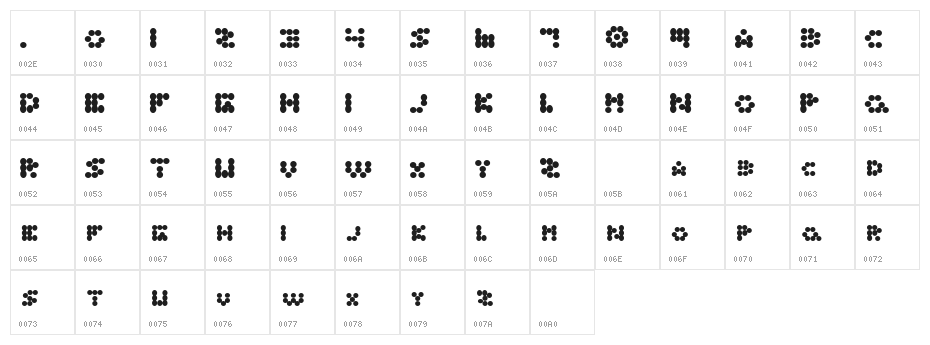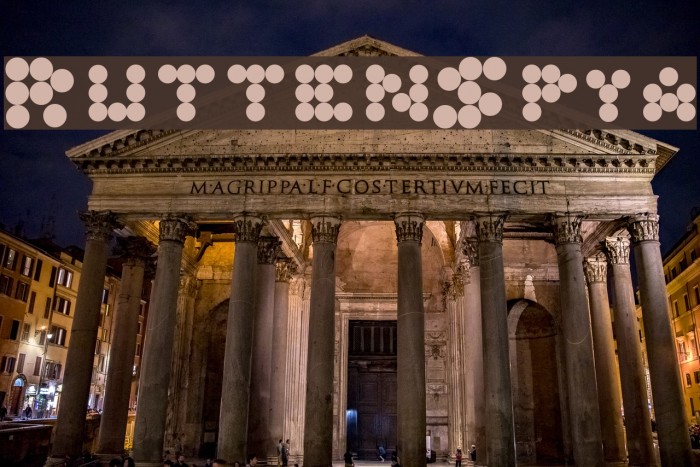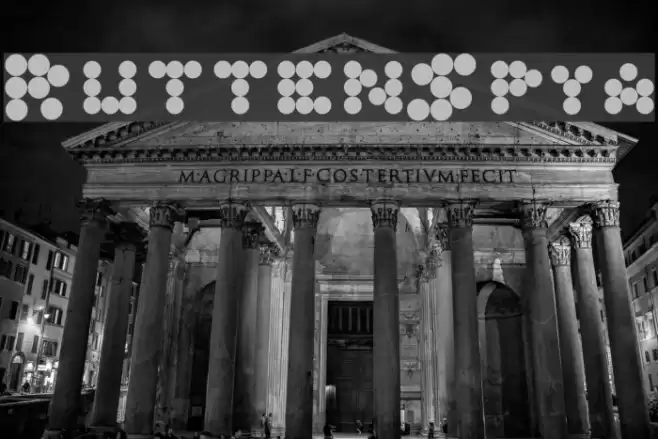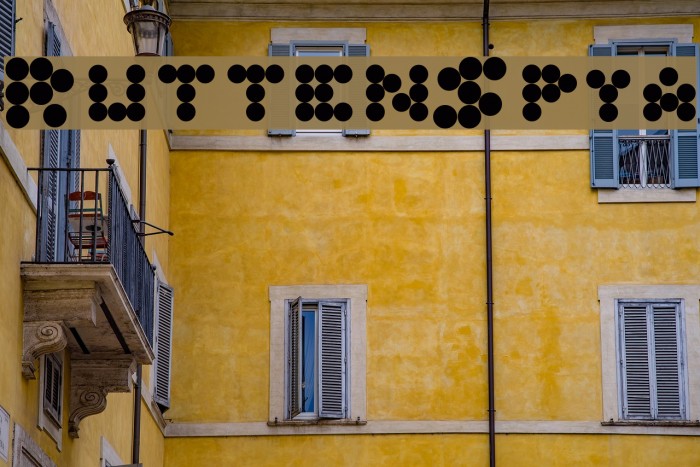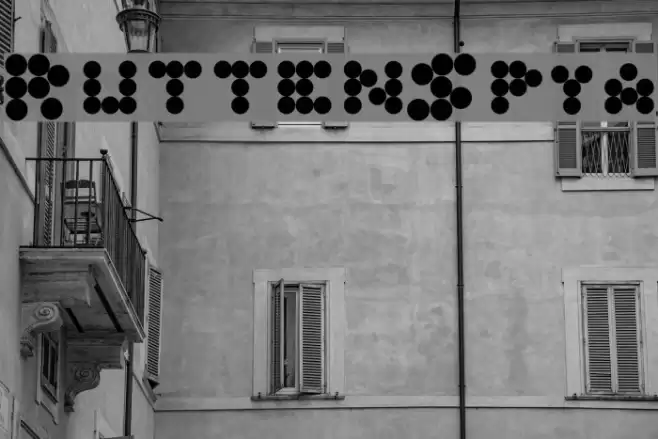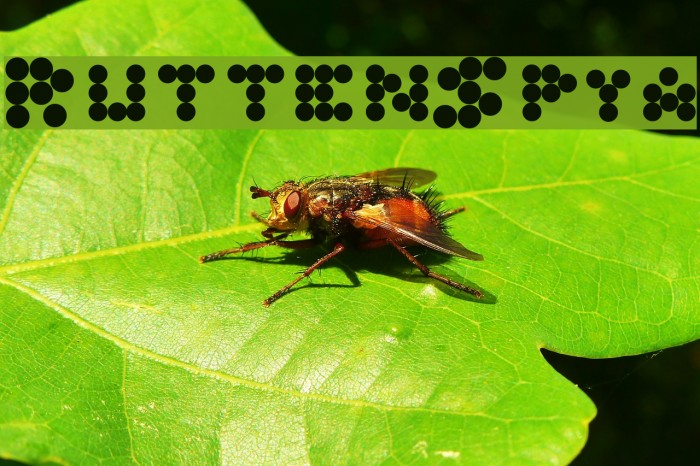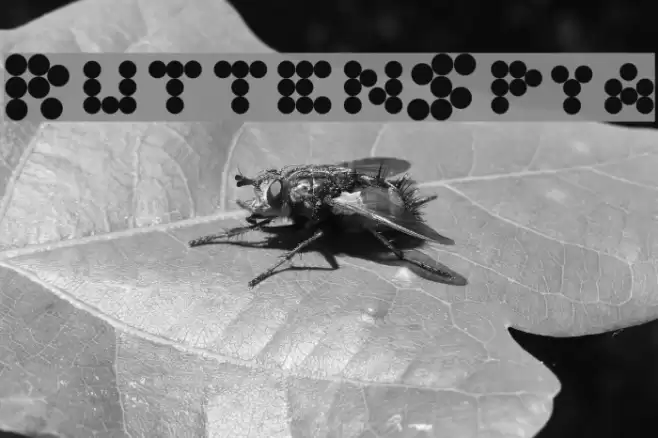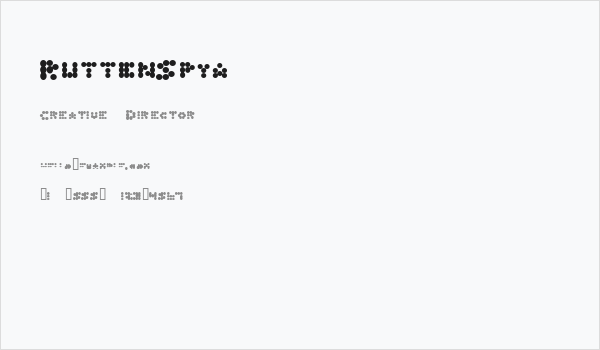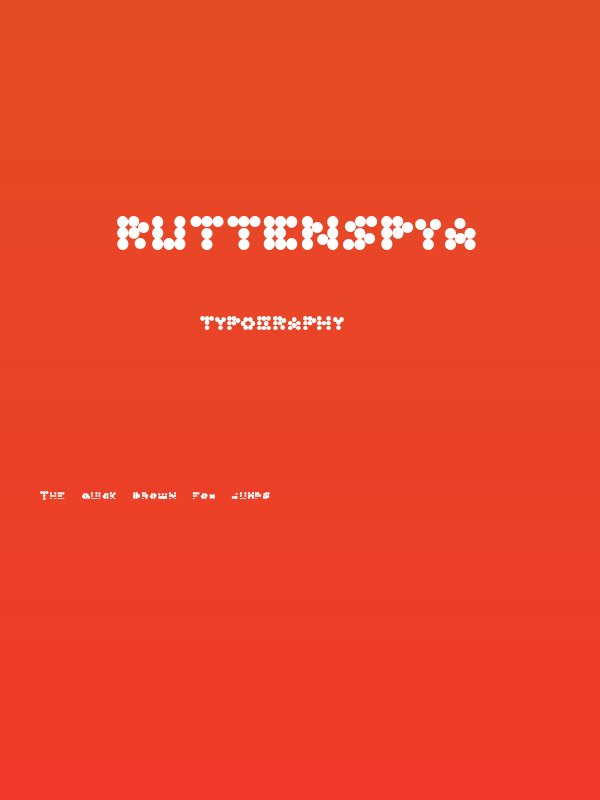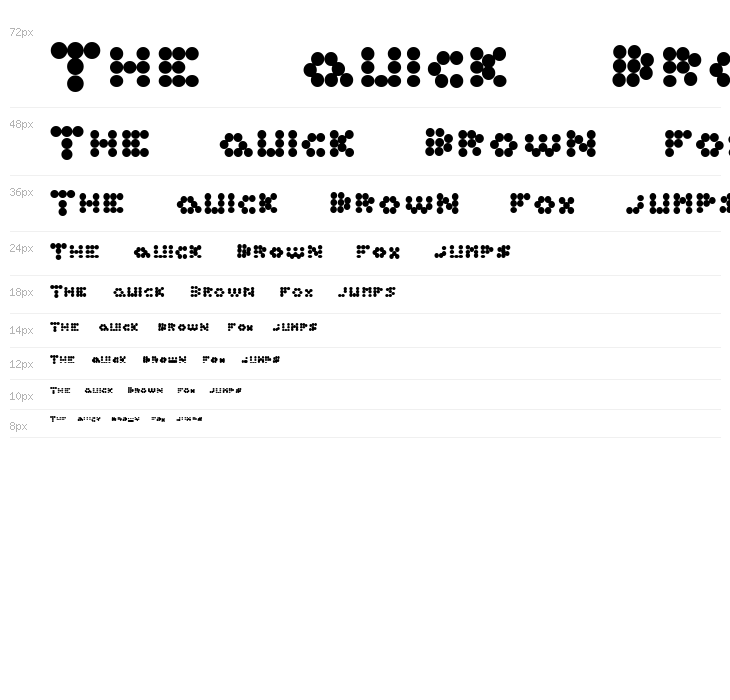
RuttenSpya Font
RuttenSpya Description
This font features a unique design where each character is constructed from a series of evenly spaced black dots, creating a pixelated or digital appearance. The characters are bold and have a uniform weight, giving them a strong visual presence. The spacing between the dots is consistent, contributing to a cohesive and structured look. This font is highly decorative and stands out due to its unconventional style, making it suitable for creative and modern design projects. The overall style is playful and futuristic, with a distinctive geometric aesthetic.